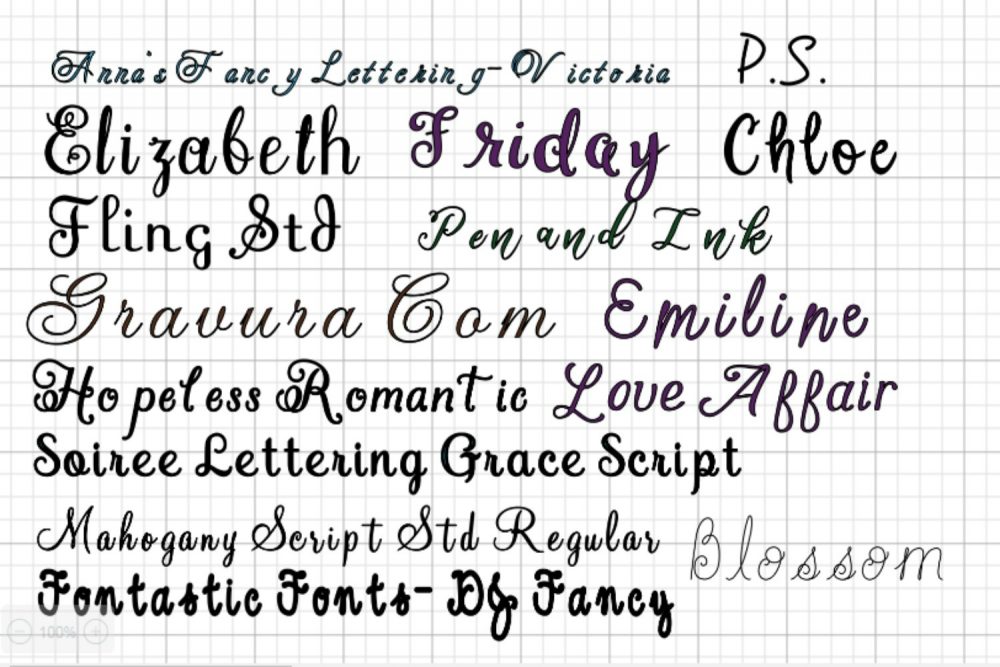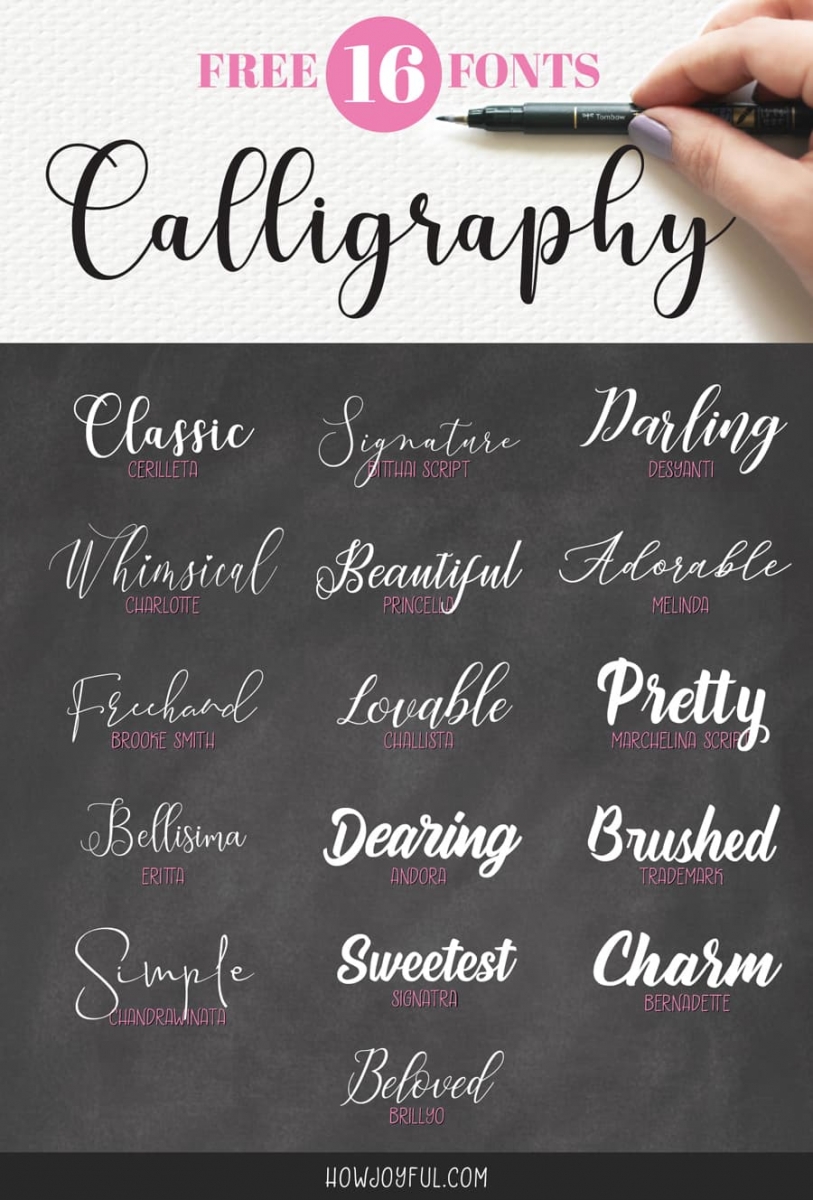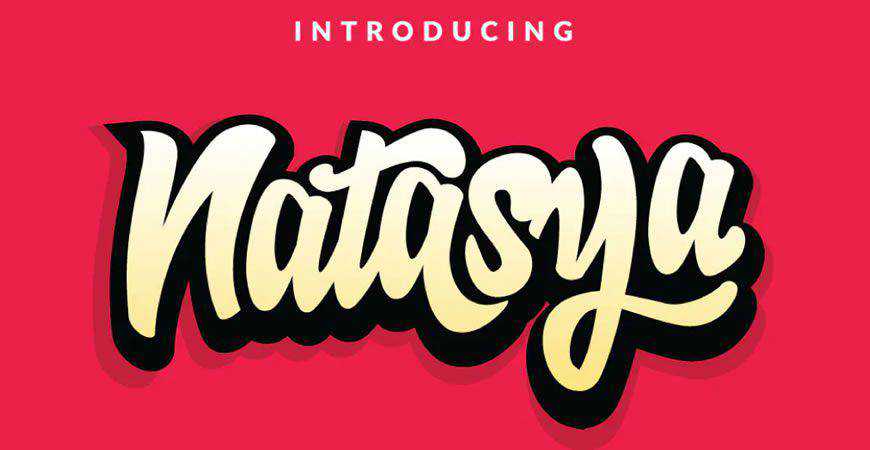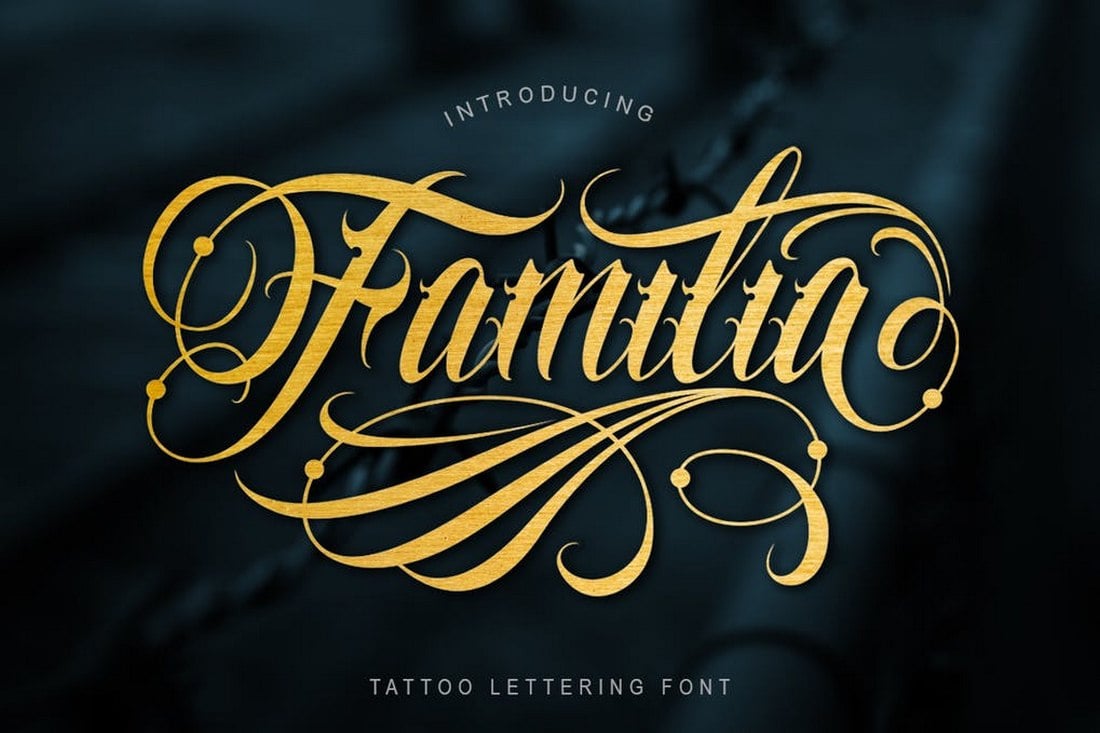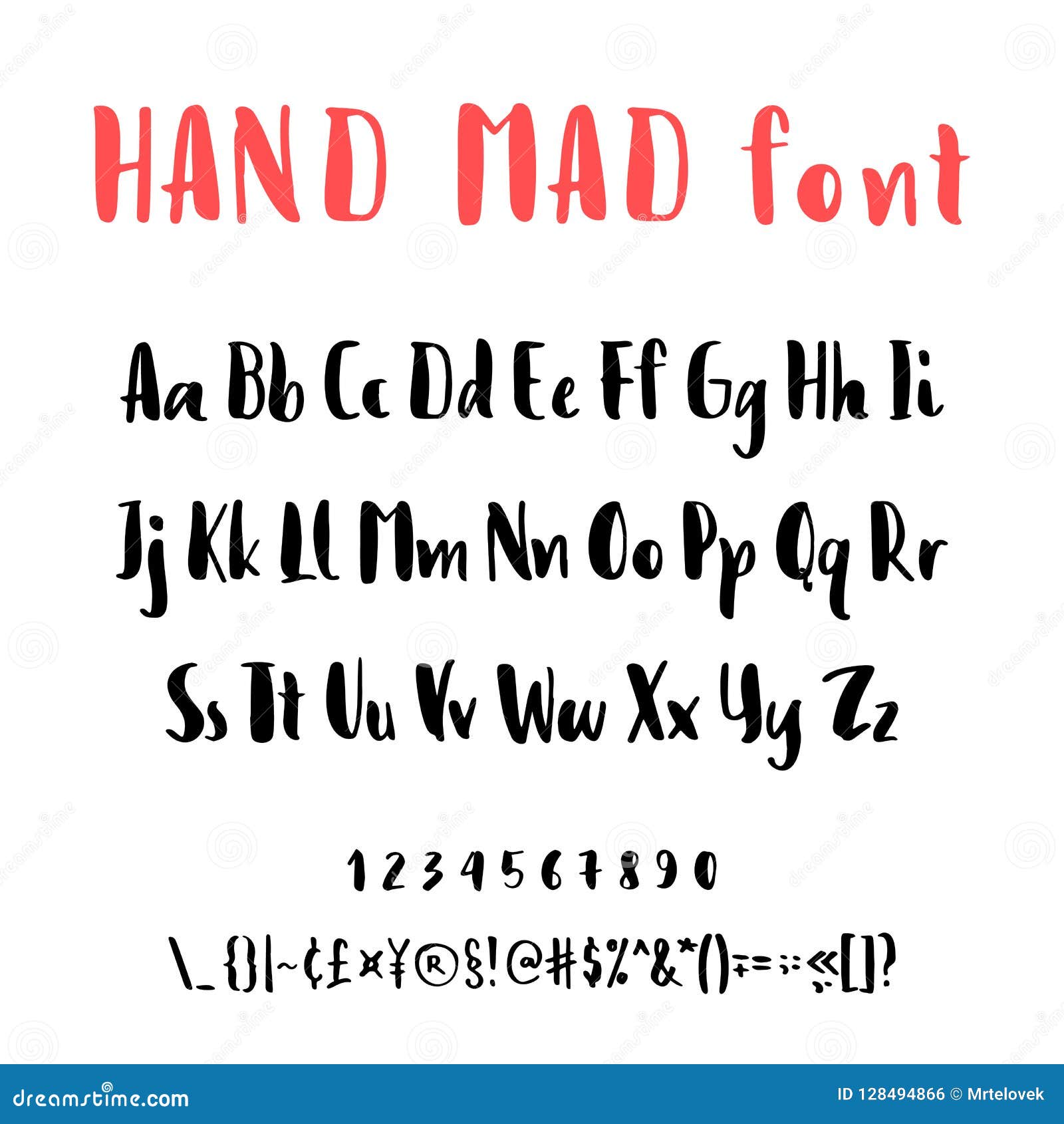
Lettering fonts design. You can change the font size of the previews via the slider next to the input box. Lettering styles include tribal traditional sailor blackletter fancy cursive script etc. See more ideas about lettering fonts lettering alphabet lettering.
Its a great look for social media restaurant advertisements invitations and more. So currently this is basically a duplicate of the above but I think Ill try to collect a few more cool text fonts like the old enlgish one and. Hand lettering is an art form that takes practice and discipline and can mimic calligraphy or other styles.